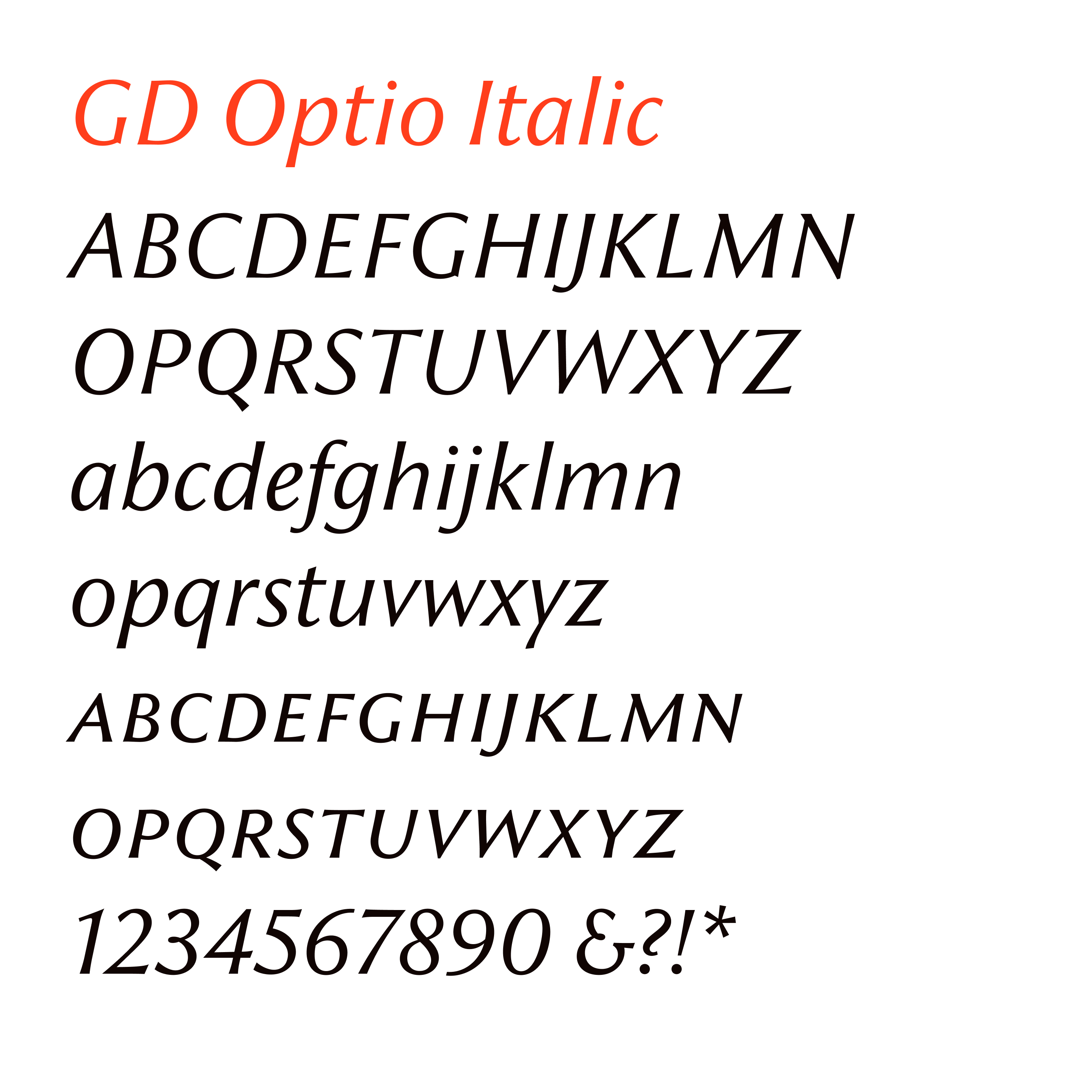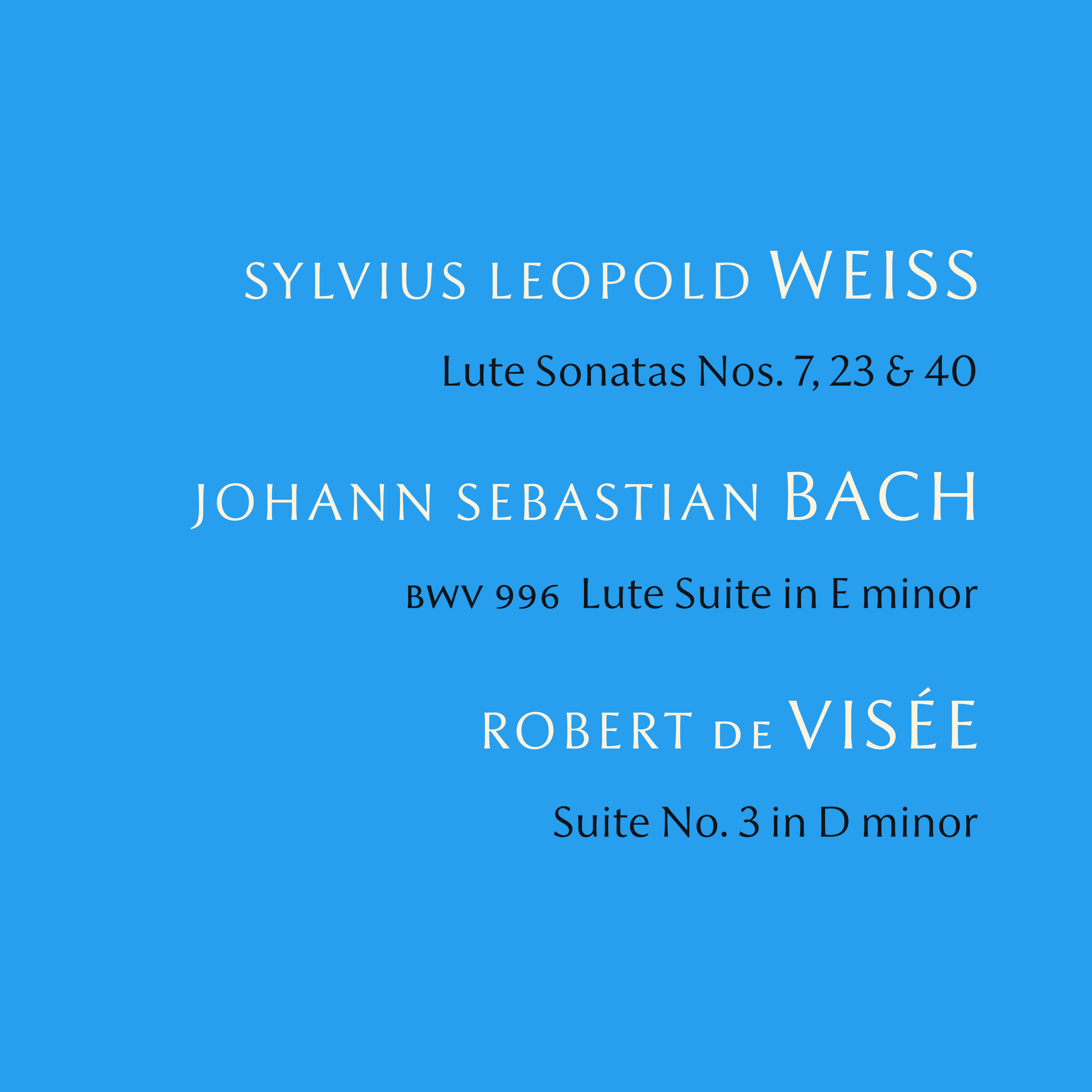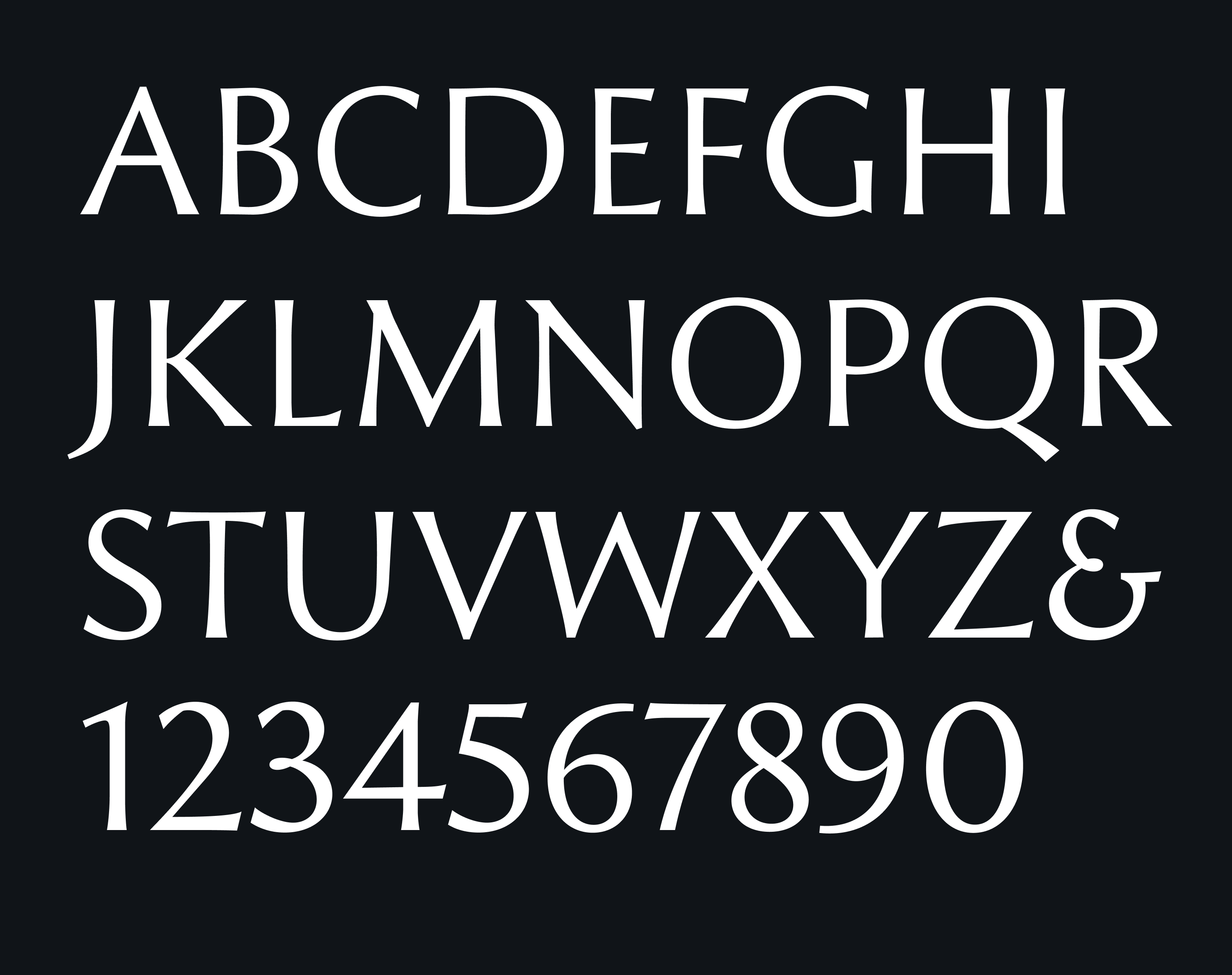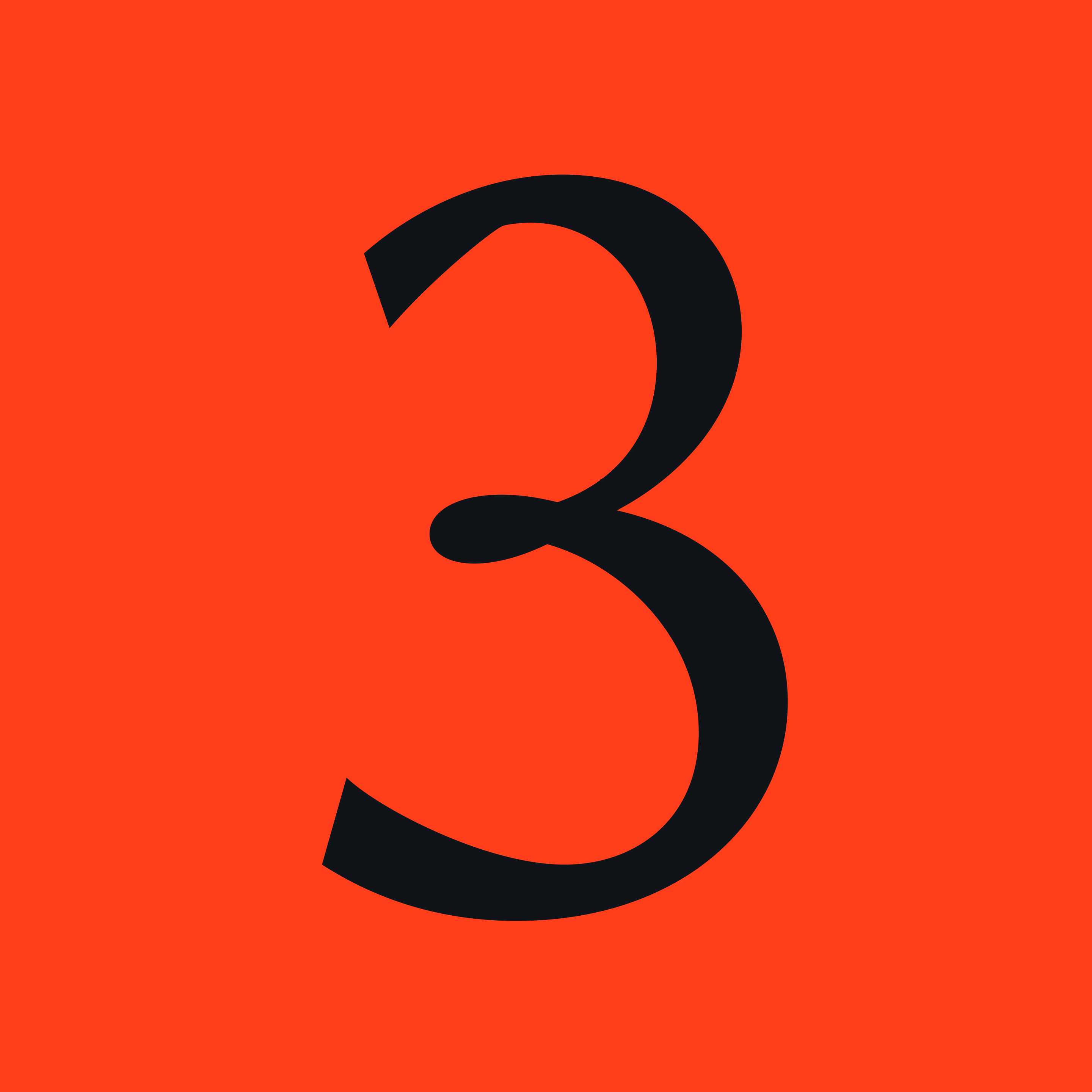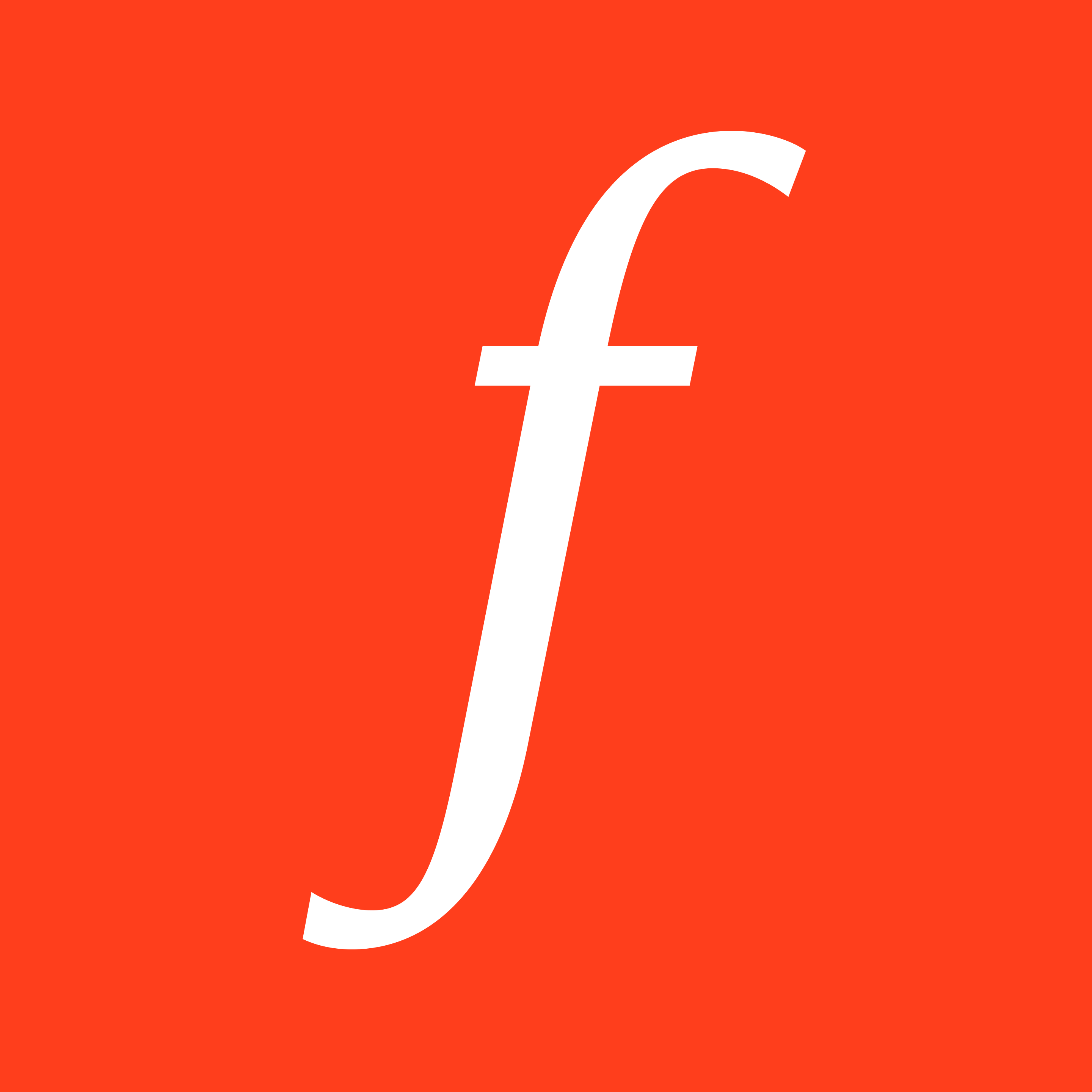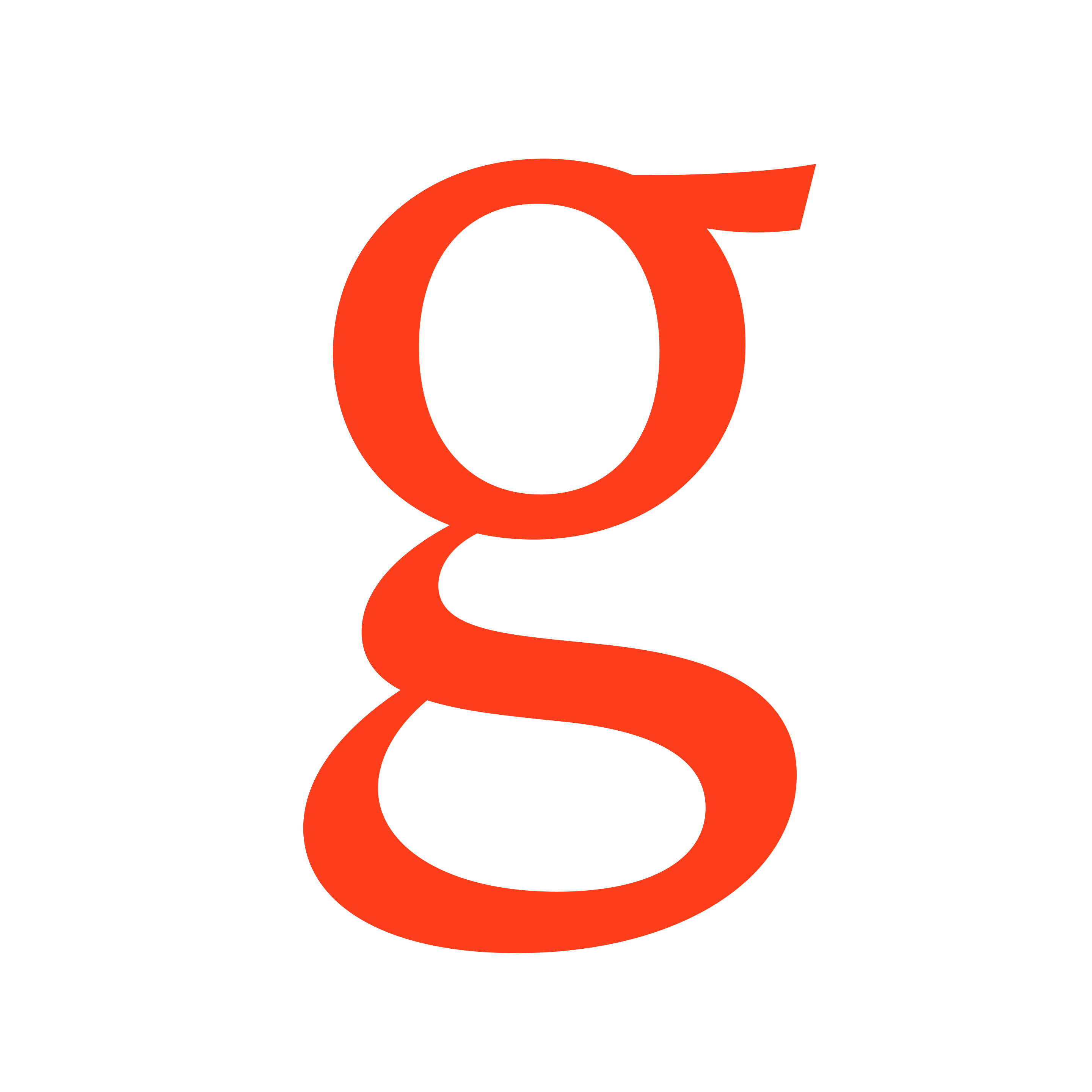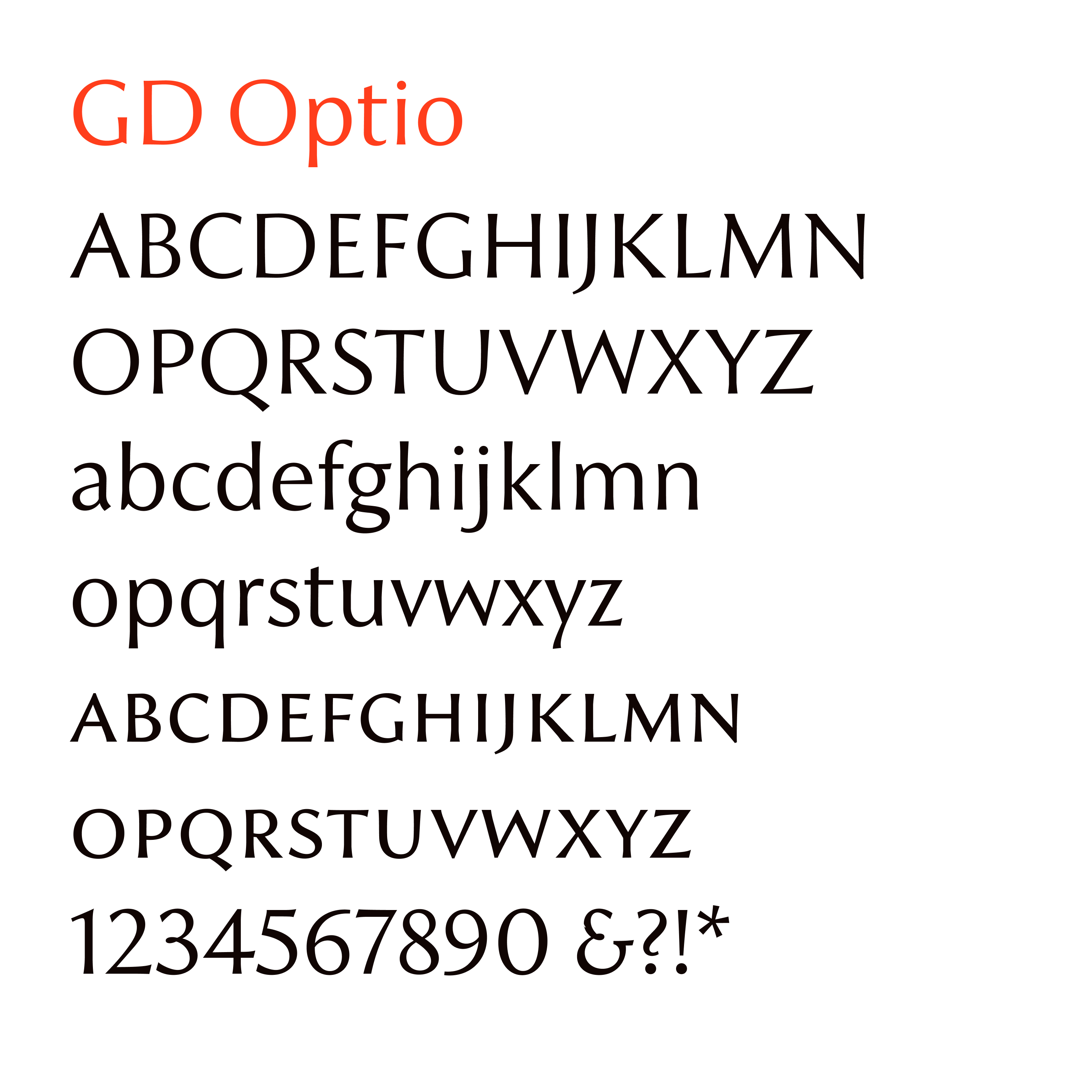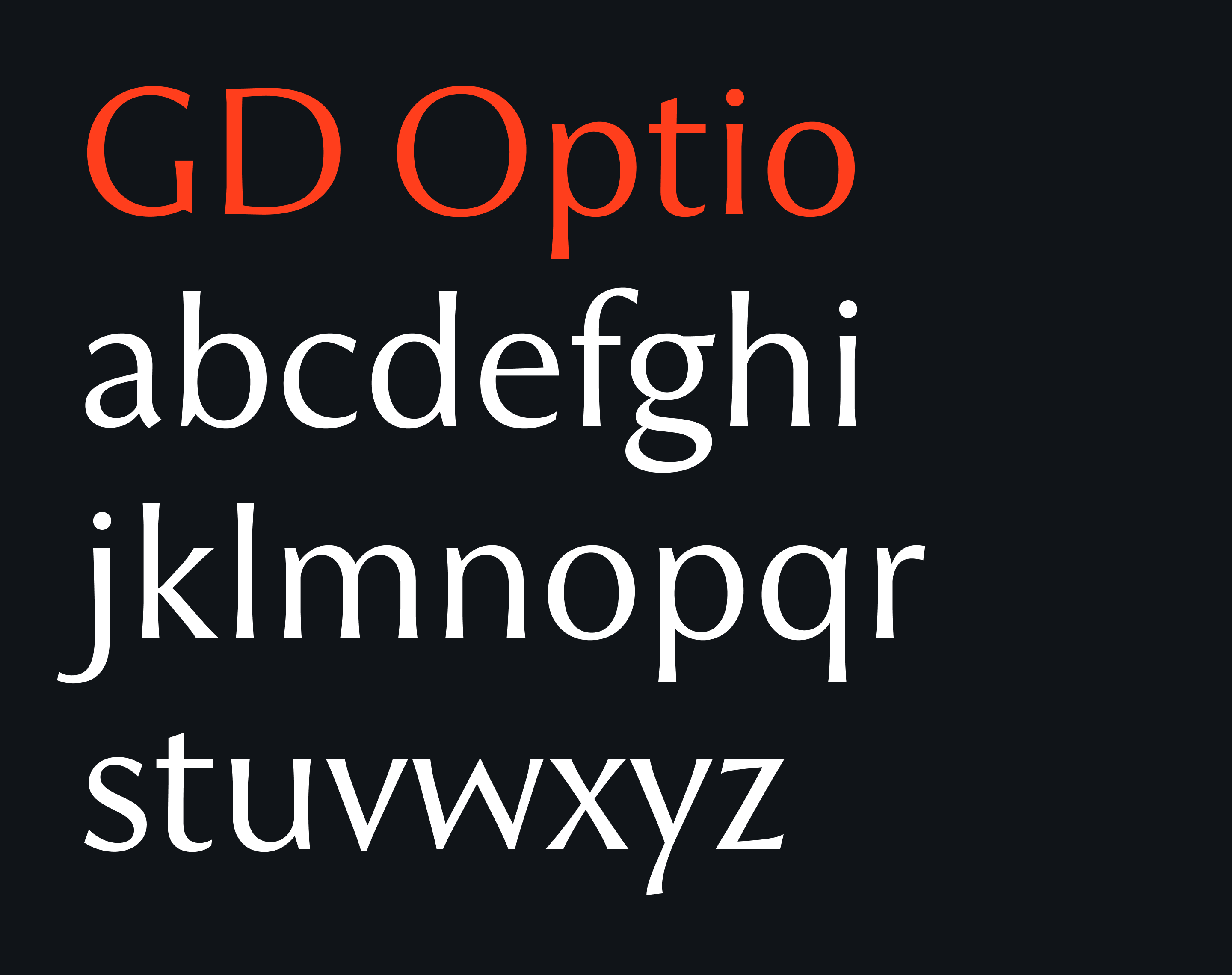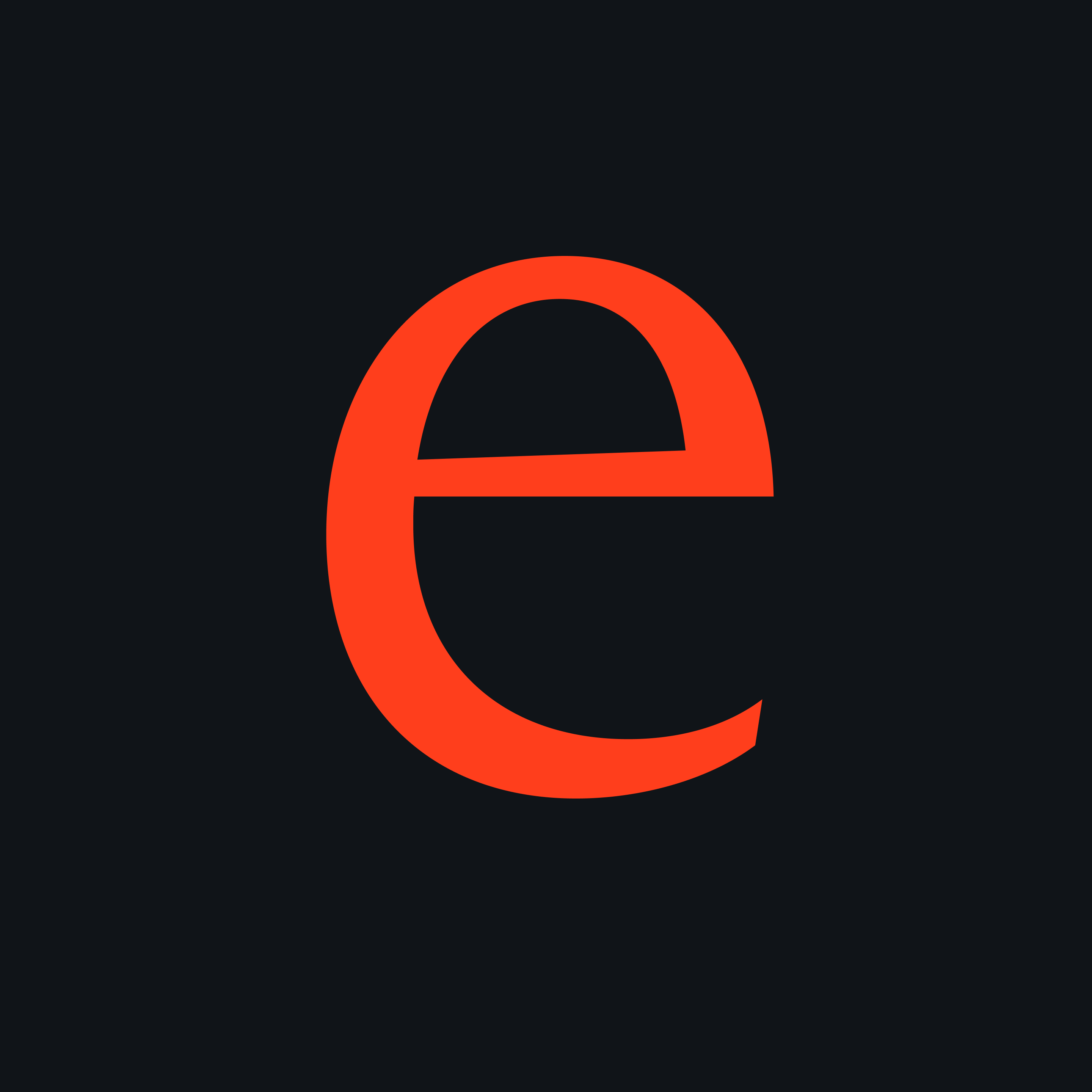
GD Optio
Between serif and sanserif, there’s an interesting range of possibilities. A pioneer in this space was Hermann Zapf’s typeface Optima, released in 1958, which is basically a sanserif but with incised strokes and unusually high stroke contrast.
Opinions diverge on Optima. Personally, I don’t think it reaches the lofty standards of Zapf’s calligraphy. But it still has to be said that it originated a new subgenre of sanserifs.
A personal favorite is Albertus, designed by Berthold Wolpe in 1932–40. It has more of serifs than Optima, but they stop well short of a typical serif typeface. The serifs are short and sharp, what is sometimes called flare serifs. I also like how Albertus combines low stroke contrast with sharp details where the strokes connect.
GD Optio draws inspiration from sources such as these and create a contemporary take on them. But while we talked a lot about Optima, Albertus and other references during the design process, GD Optio isn’t that close to any particular source.
For example, GD Optio has a straight segment in the middle of the stems, where Optima has a curve all the way. But the exact shapes of the curved parts at the ends of the strokes actually differ between letters, to create a subtly irregular and organic appearance.
Also unlike the original Optima, the italic version of GD Optio is not simply oblique, but departs from the Regular in many ways, that makes it more interesting and useful.